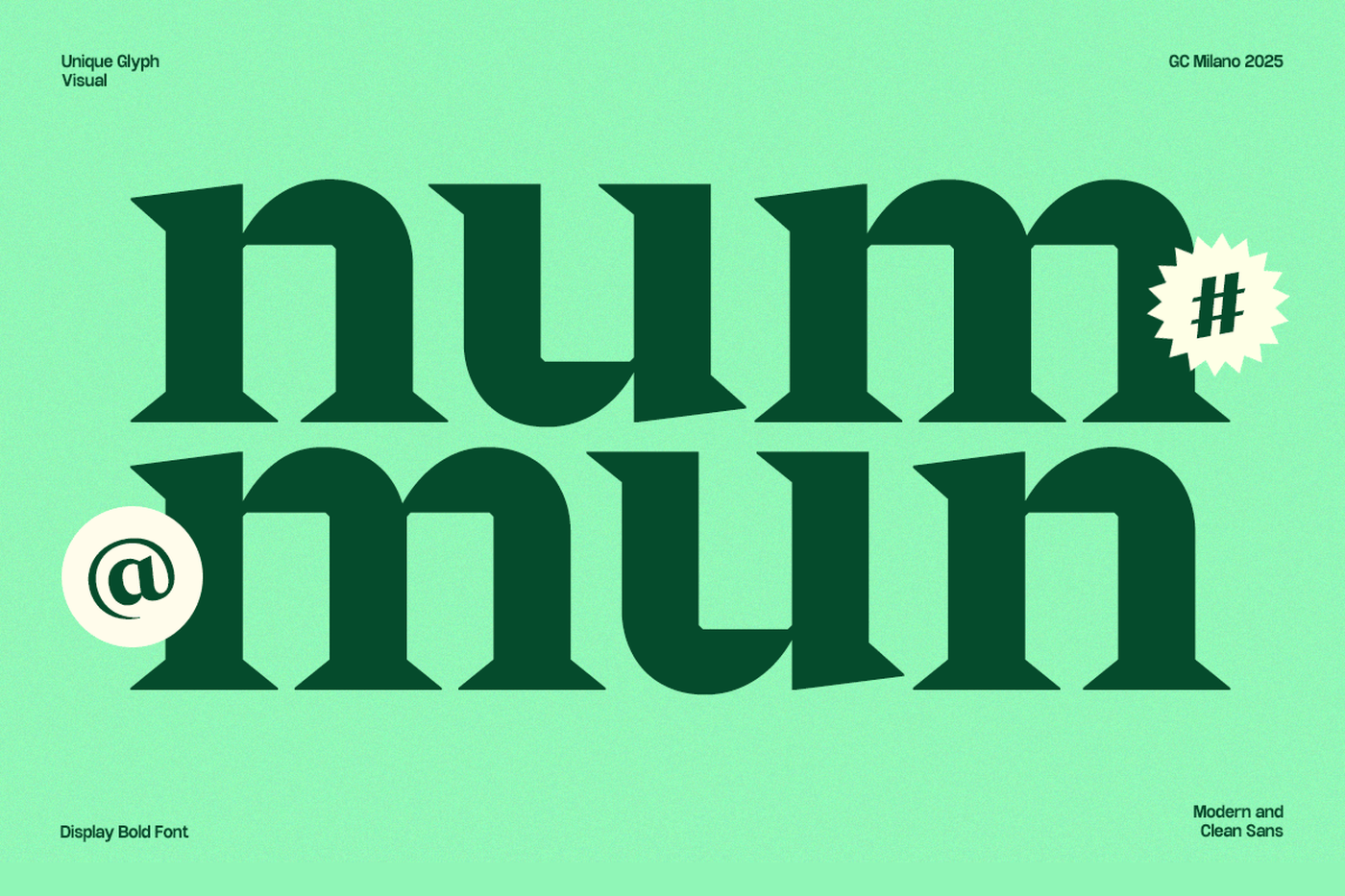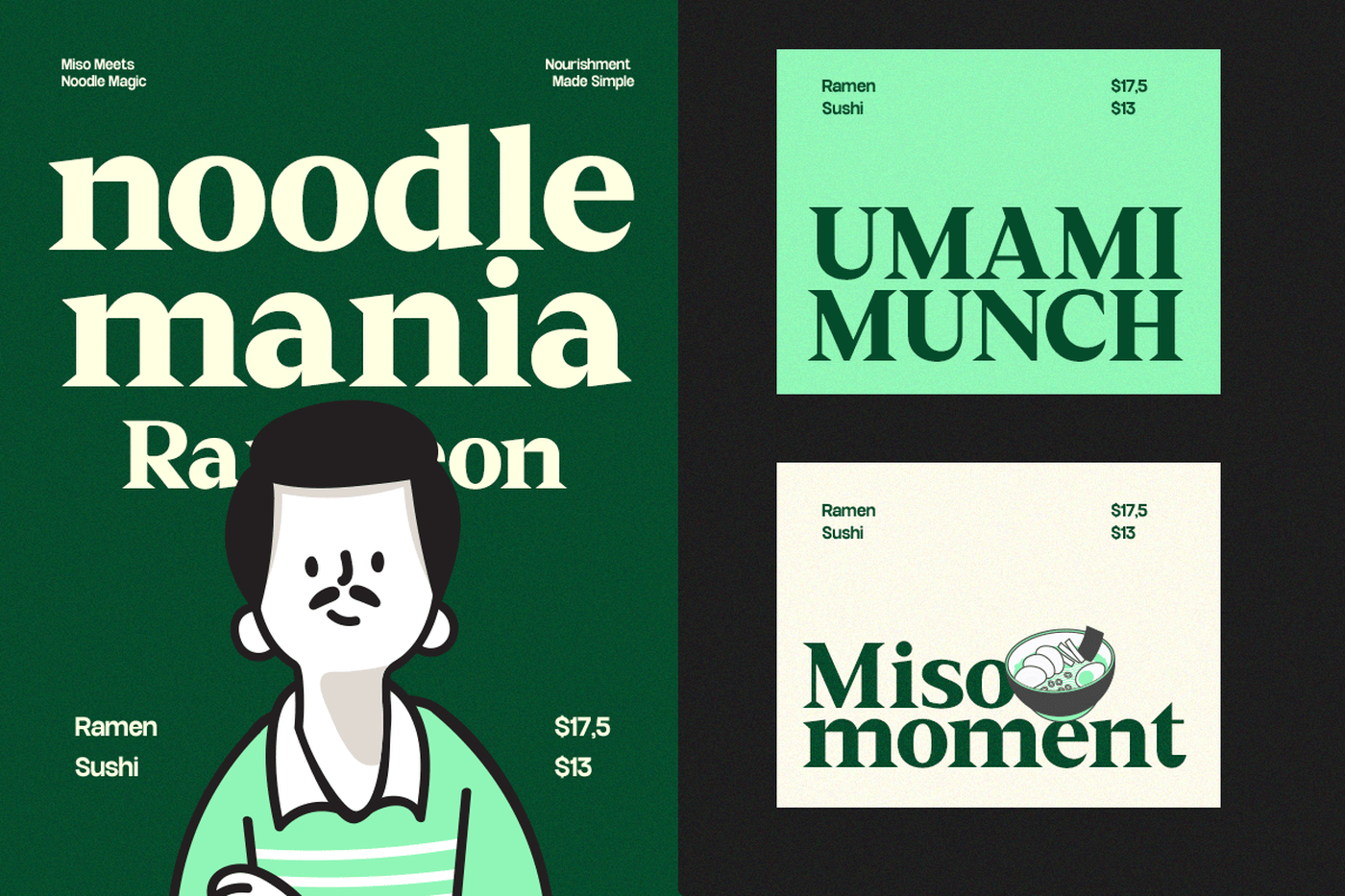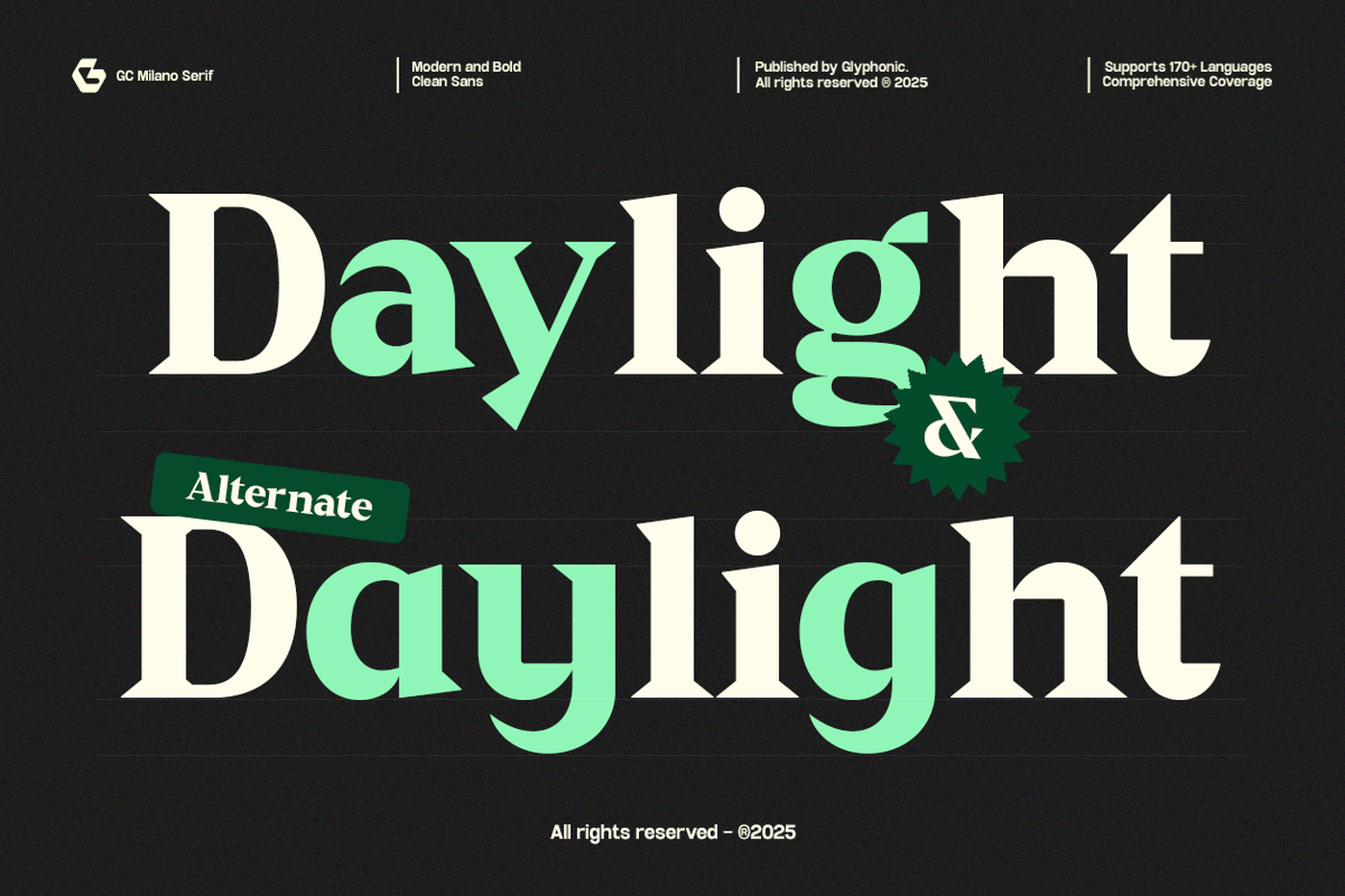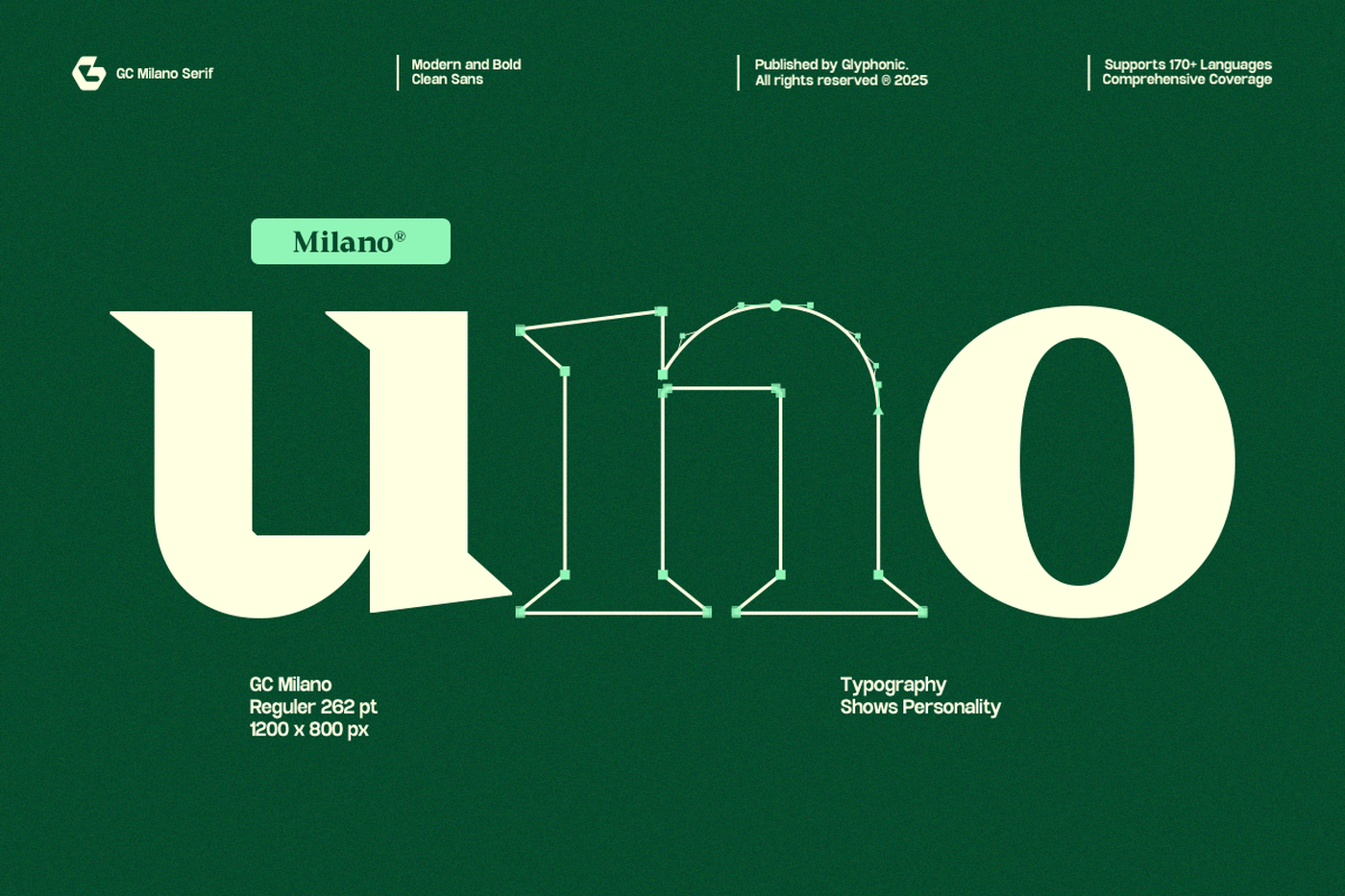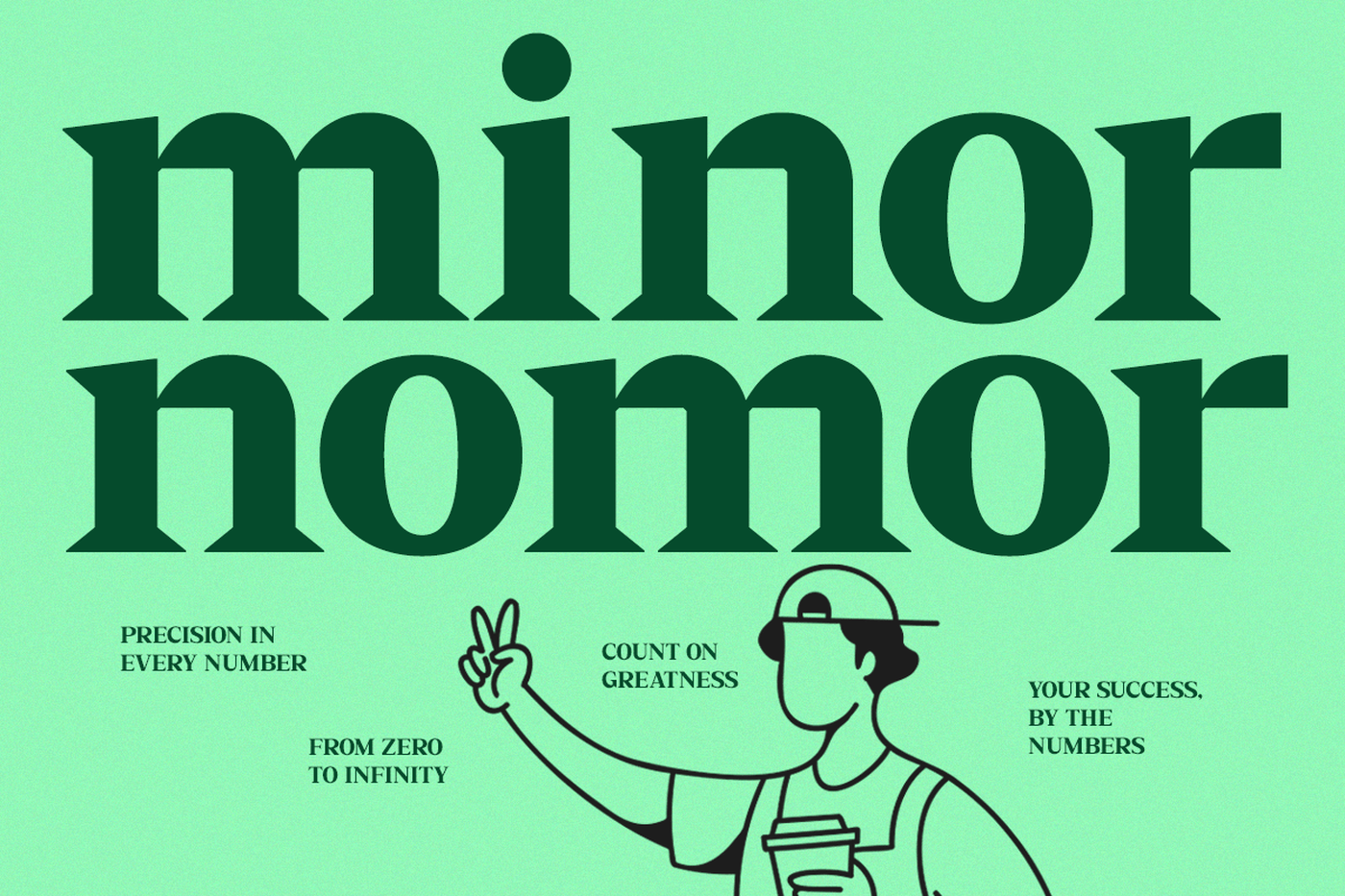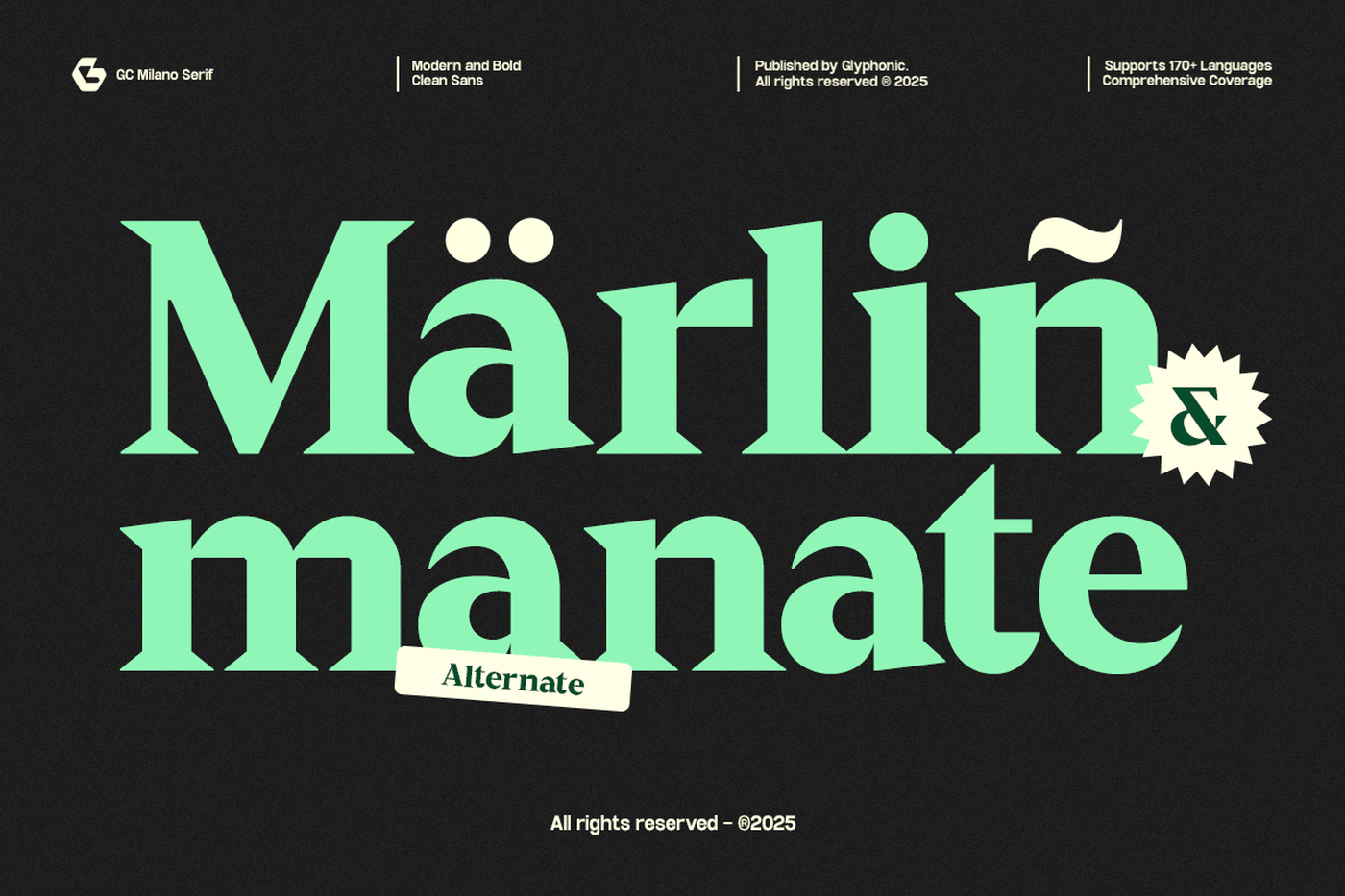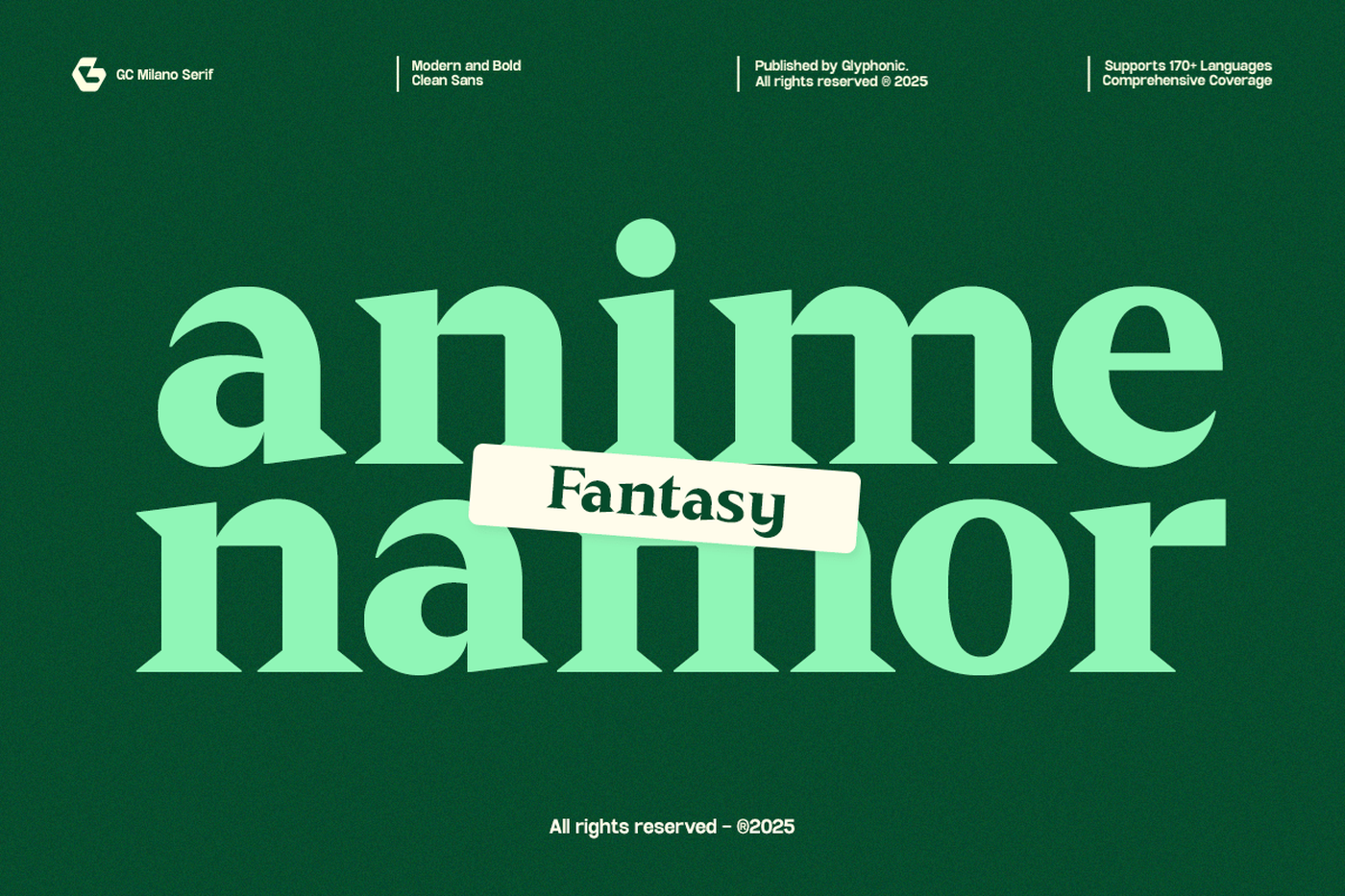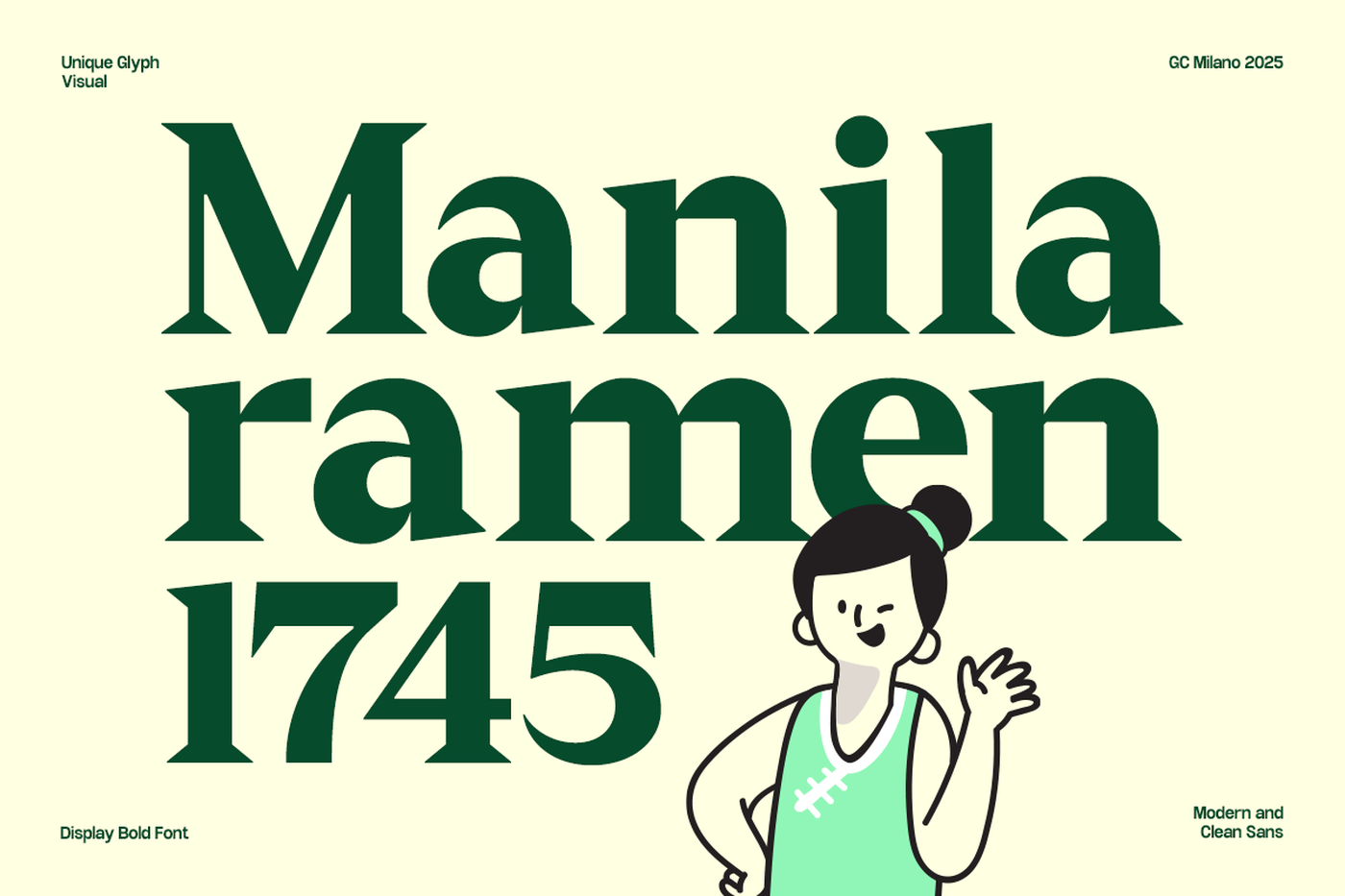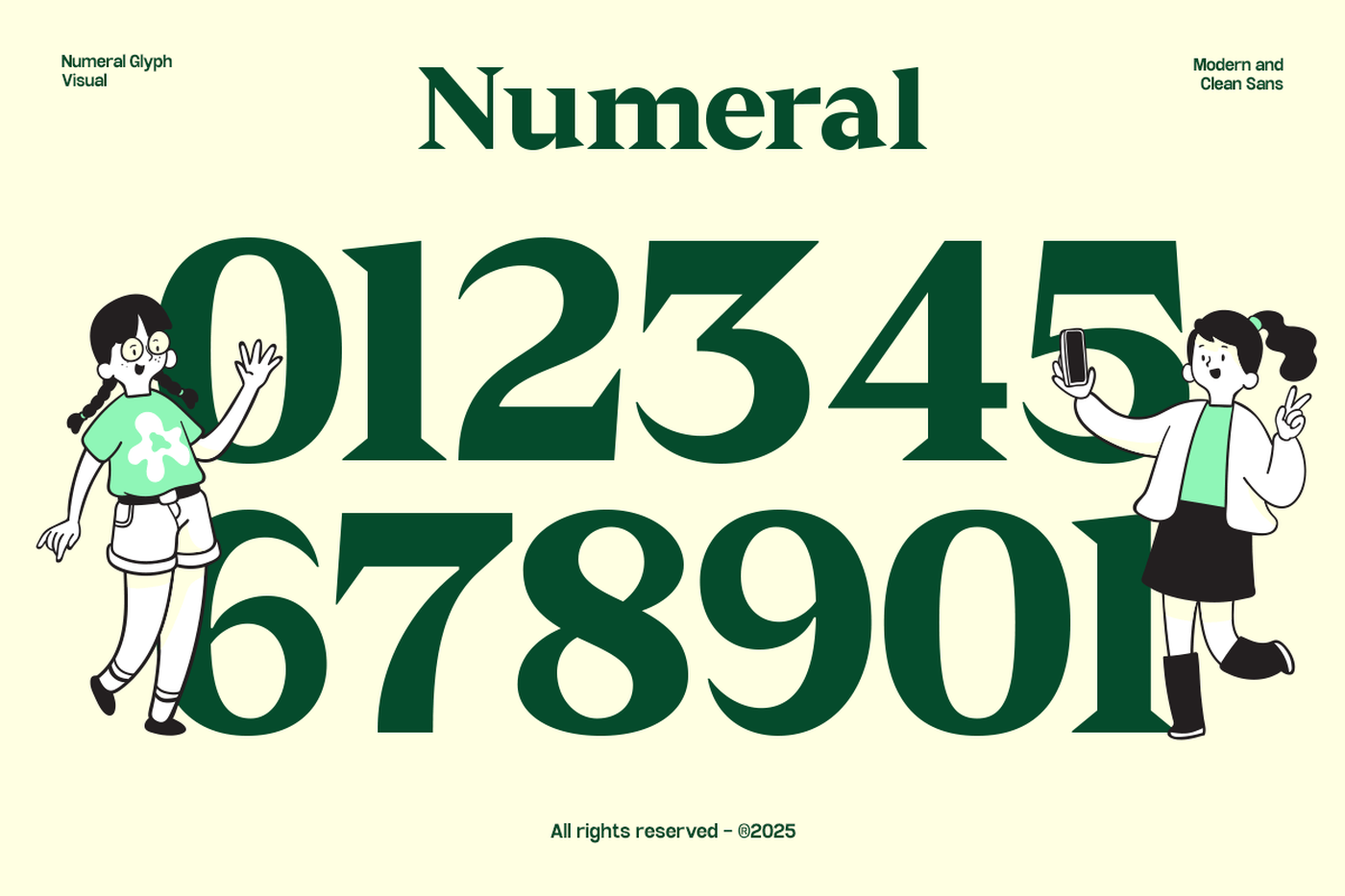
Milano - Bold Serif FontGC
Milano is a modern bold serif typeface that blends timeless elegance with striking strength. Designed to stand out while remaining refined, it’s perfectly suited for headlines, branding, logos, packaging, editorial layouts, and luxury-inspired visuals. Crafted with precision, it delivers a confident and sophisticated impression in any design. With its high-contrast strokes, sharp serifs, and sculpted curves, GC Milano combines power with elegance. Whether you’re creating fashion identities, editorial spreads, or artistic projects, this typeface brings versatility, clarity, and refined style to your work.
Font: Milano